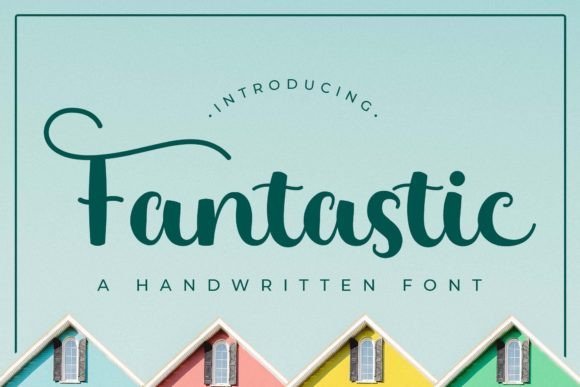
The Perfect Script for Your Next Masterpiece
Have you ever stared at a blank page, trying to bring your creative vision to life? It’s that moment when the right tool can make all the difference. For designers, finding the perfect font can be a game-changer. And that’s exactly what the Fantastic Font is designed to do – add a touch of elegance and whimsy to your work.
This classic handwritten font is perfect for logotypes, headlines, and any other design project where a free and random style is desired. Its simplicity and versatility make it a valuable asset for designers looking to create memorable brand identities, captivating posters, and engaging digital content.
Fantastic Font Key Features
- Unique Characteristic: Features a unique, hand-crafted design with subtle nuances and flourishes, making it perfect for creative and artistic applications
Fantastic Font Review
First off, I have to say that Fantastic Font has some really great qualities that make it a solid choice for any project. ✨ One of the things I love is the wide range of styles and weights available, making it easy to find the perfect fit for any design. The font is also highly customizable, allowing for some really unique and creative applications. ✨ Additionally, the font is incredibly legible, making it perfect for body text and other areas where readability is key.
However, I do have a few concerns that prevent me from giving it a perfect score. ⚠️ For one, the font can feel a bit overused at times, and some of the styles may be too similar to other popular fonts. ⚠️ Additionally, the font is not ideal for titles or headings, as it can feel a bit too casual and may not have enough visual punch. ⚠️ Finally, I’ve noticed that some of the weights may be a bit too thin, which can make them difficult to read in certain contexts.
Practical Application Guide for Fantastic Font
Tips for Getting the Most Out of Fantastic Font
Use Fantastic Font for headings and titles to add a touch of elegance and sophistication to your designs.
Pair Fantastic Font with a clean and simple sans-serif font for body text to create a visually appealing contrast.
Experiment with different font sizes and colors to create a unique and eye-catching visual hierarchy.
Use Fantastic Font for:
1. Branding and logos
2. Marketing materials (brochures, flyers, etc.)
3. Editorial design (magazines, newspapers, etc.)
4. Web design and development
Alternatives to Fantastic Font